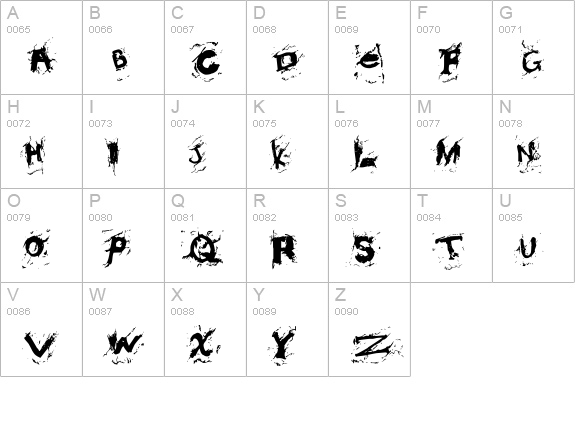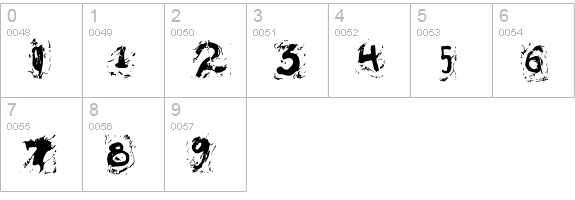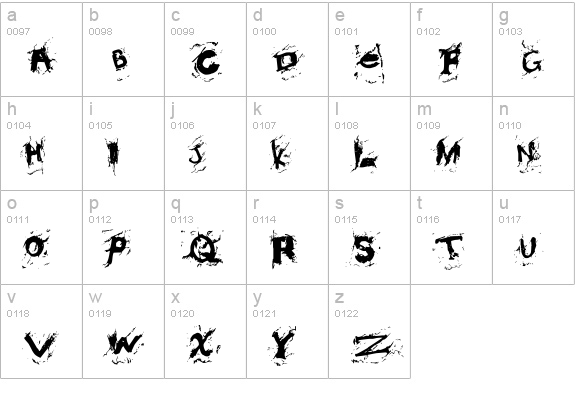
Misconstrued Font Details
Introducing the captivating and unique Misconstrued font! This font exudes a sense of mystery and intrigue with its unconventional design and edgy appeal. Perfect for adding a touch of originality to your creative projects, Misconstrued font is sure to make a bold statement. What makes Misconstrued font even more appealing is the fact that it is available for free download at FontsMarket.com. Yes, you read that right - this stunning font can be yours at no cost, allowing you to unleash your creativity without any barriers. With its eye-catching style and free availability, Misconstrued font is a must-have addition to any designer's toolkit. Whether you're working on a branding project, poster design, or any other creative endeavor, this font is sure to elevate your work to the next level. Don't miss out on the opportunity to download Misconstrued font for free and let your imagination run wild!